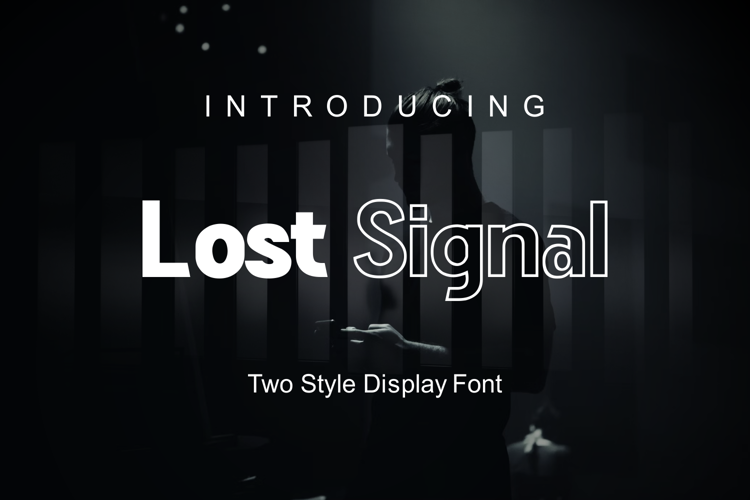
Lost Signal Font
About Lost Signal Font
“Introducing Lost Signal is a two-style display that’s absolutely perfect for editorial headlines. Her bold and characterful figure makes her perfect for posters, extreme sports, automotive and magazine covers. Reserved for upper and lower case in each style, featuring fl and fi ligatures, this calm and bold typeface is a content creator’s best friend.